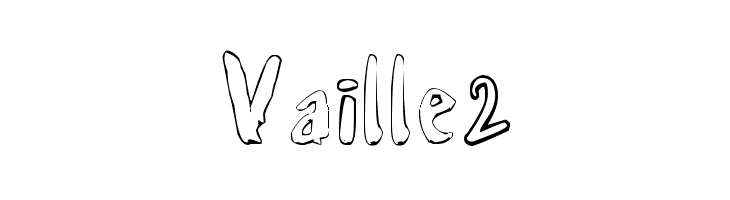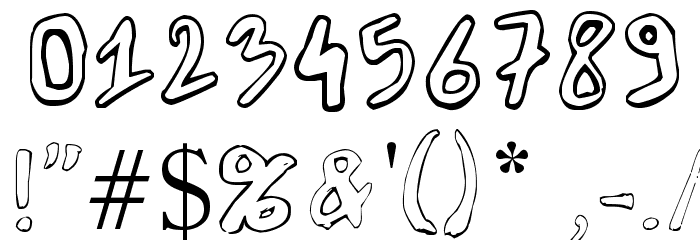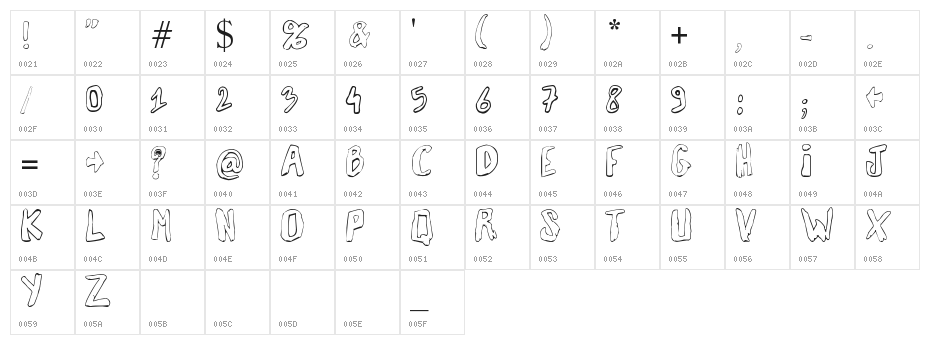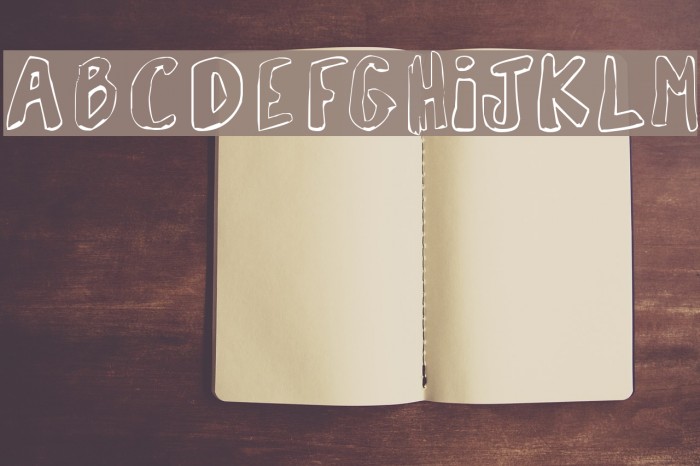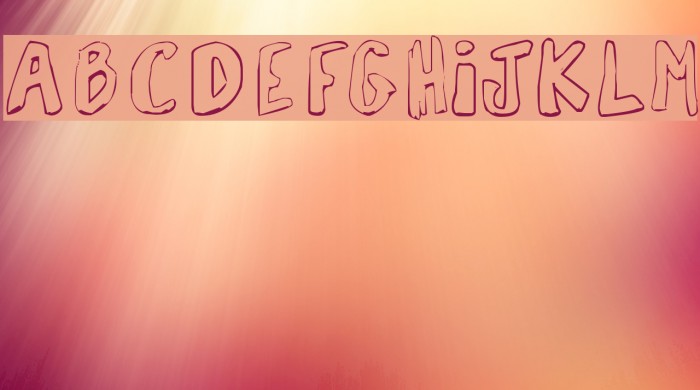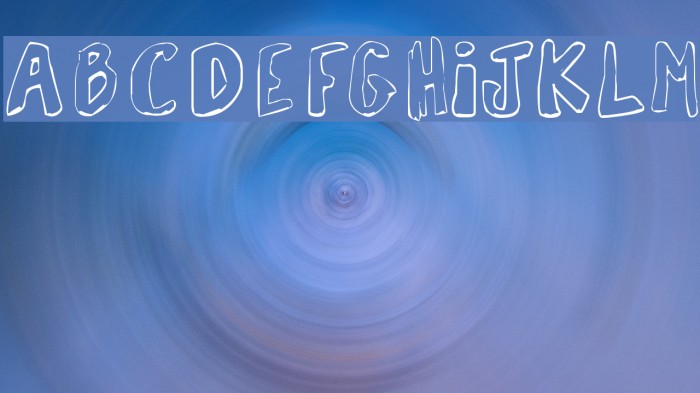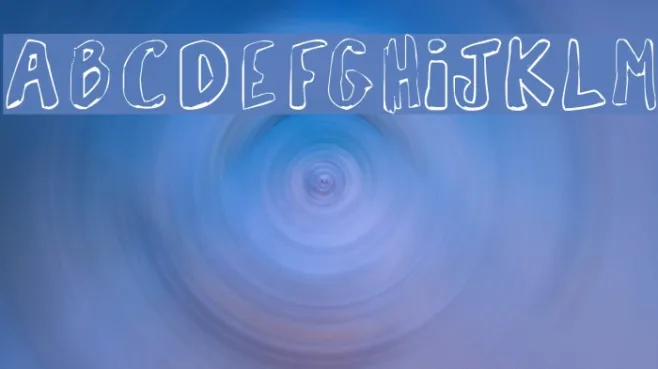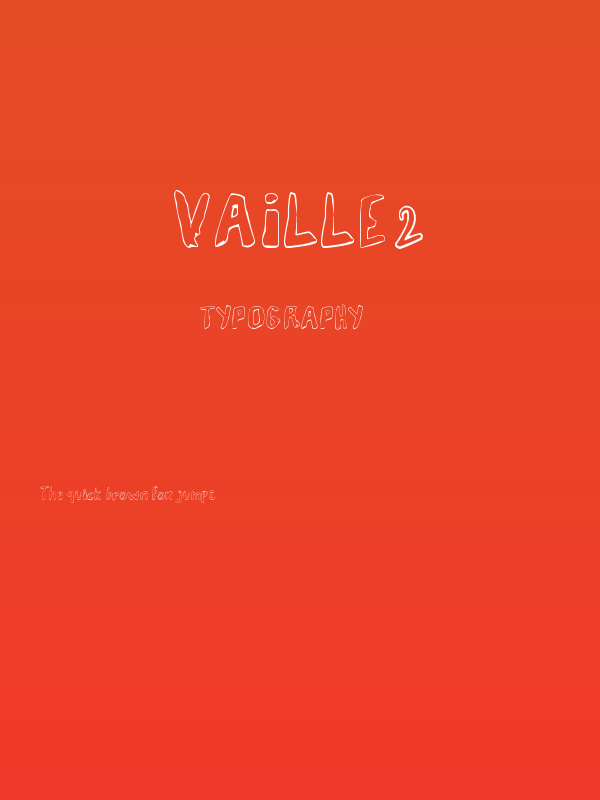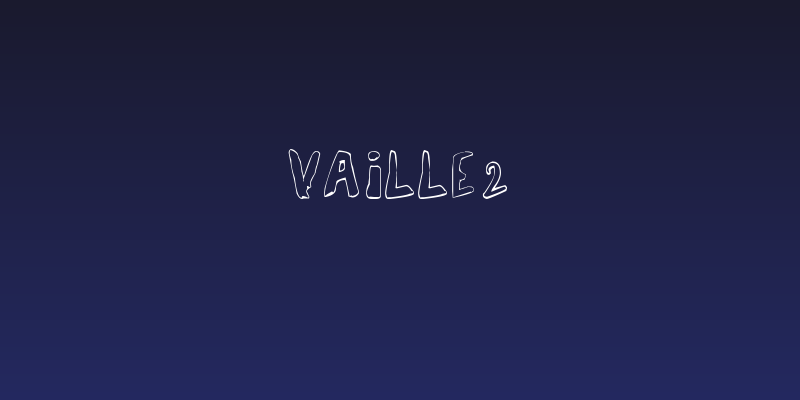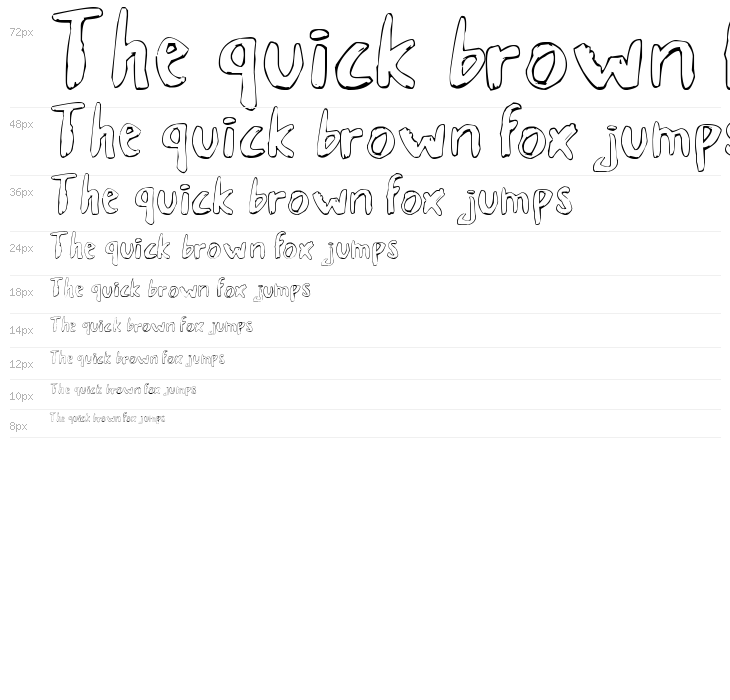
Vaille2 Font
Vaille2 Description
This font features a playful and hand-drawn style, characterized by its irregular and organic shapes. The letters have a casual, almost doodle-like appearance, with varying stroke thickness that adds to its whimsical charm. The uppercase and lowercase letters maintain a consistent style, while the numbers and special characters complement the overall design. The font's uneven edges and slightly tilted characters give it a dynamic and lively feel, making it suitable for creative and informal projects.